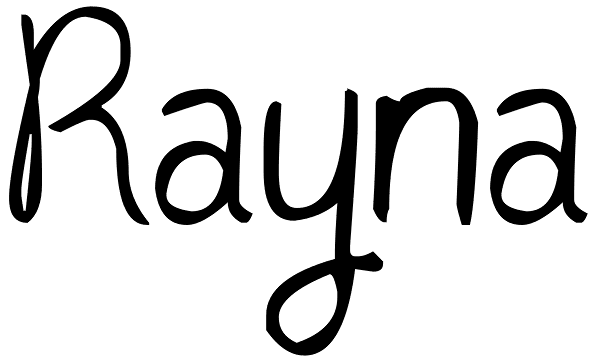
Rayna
Rayna is a simply beautiful handwritten font that is suitable for scrapbooking, notes to friends, and stylish logos. It is both elegant and versatile, including both Latin and Cyrillic alphabets with support for most European languages. This...